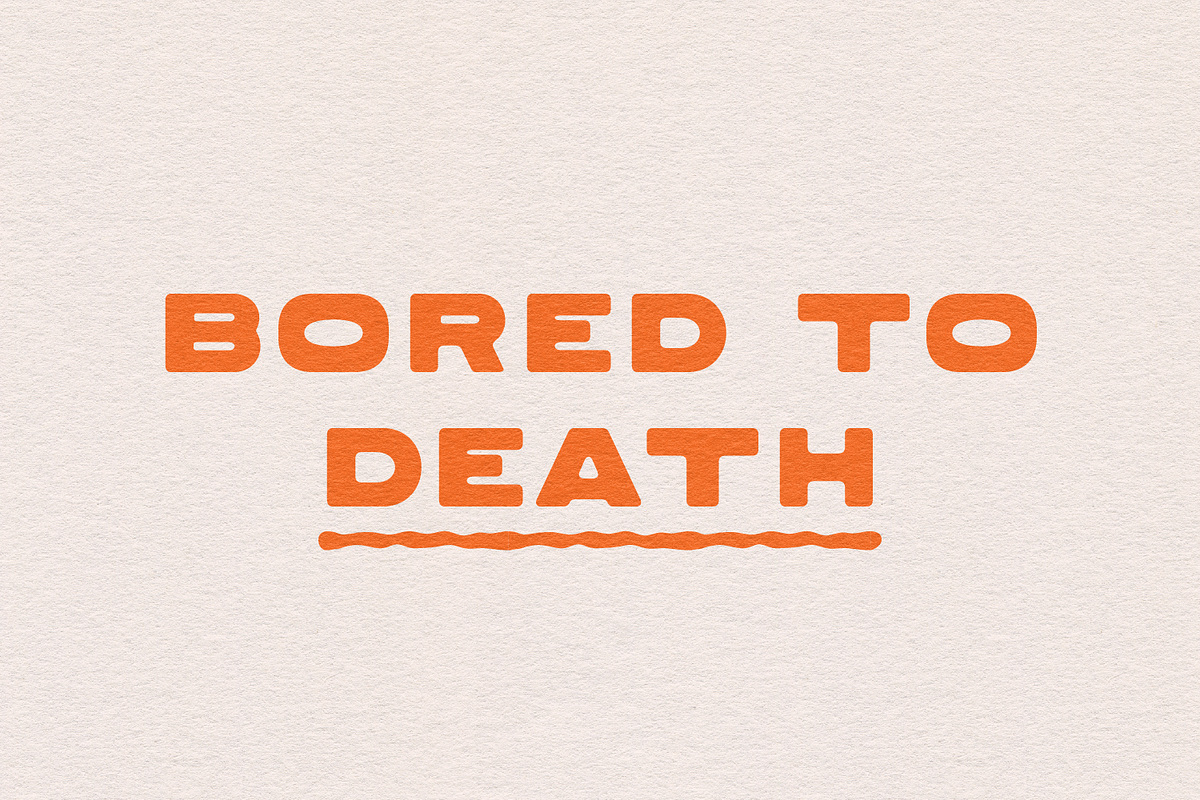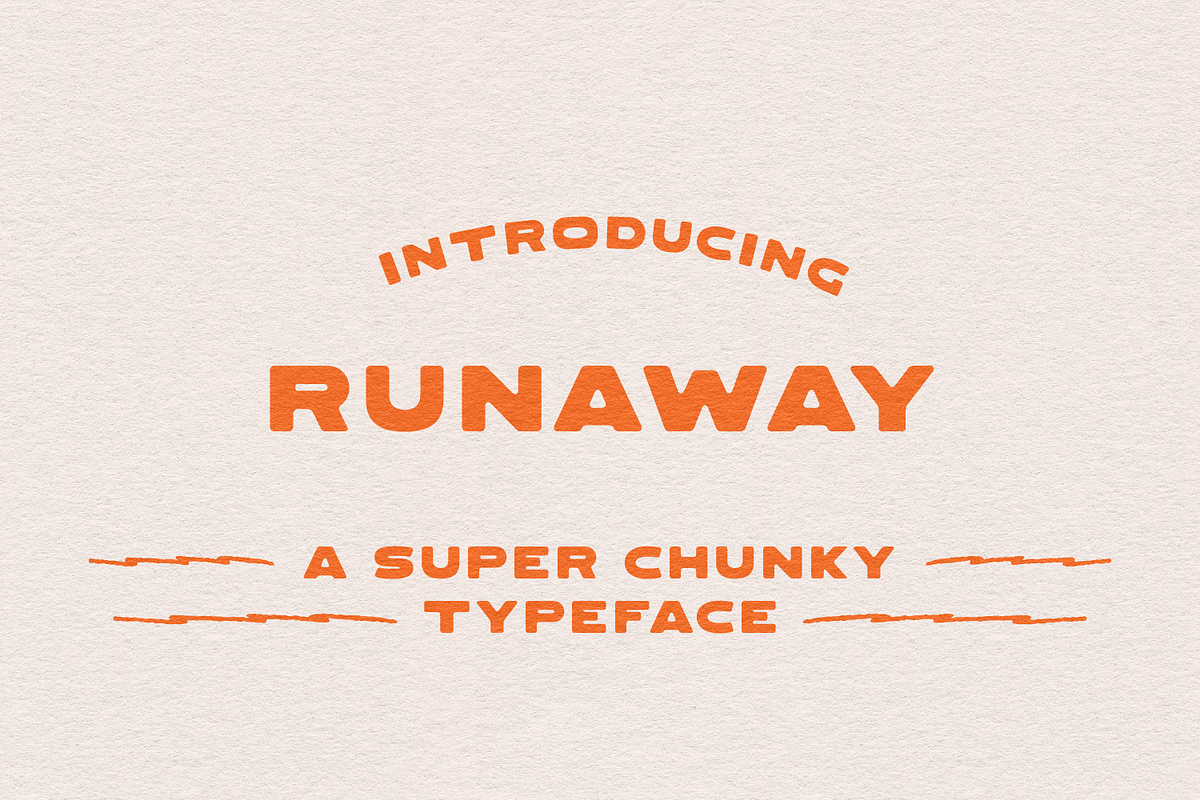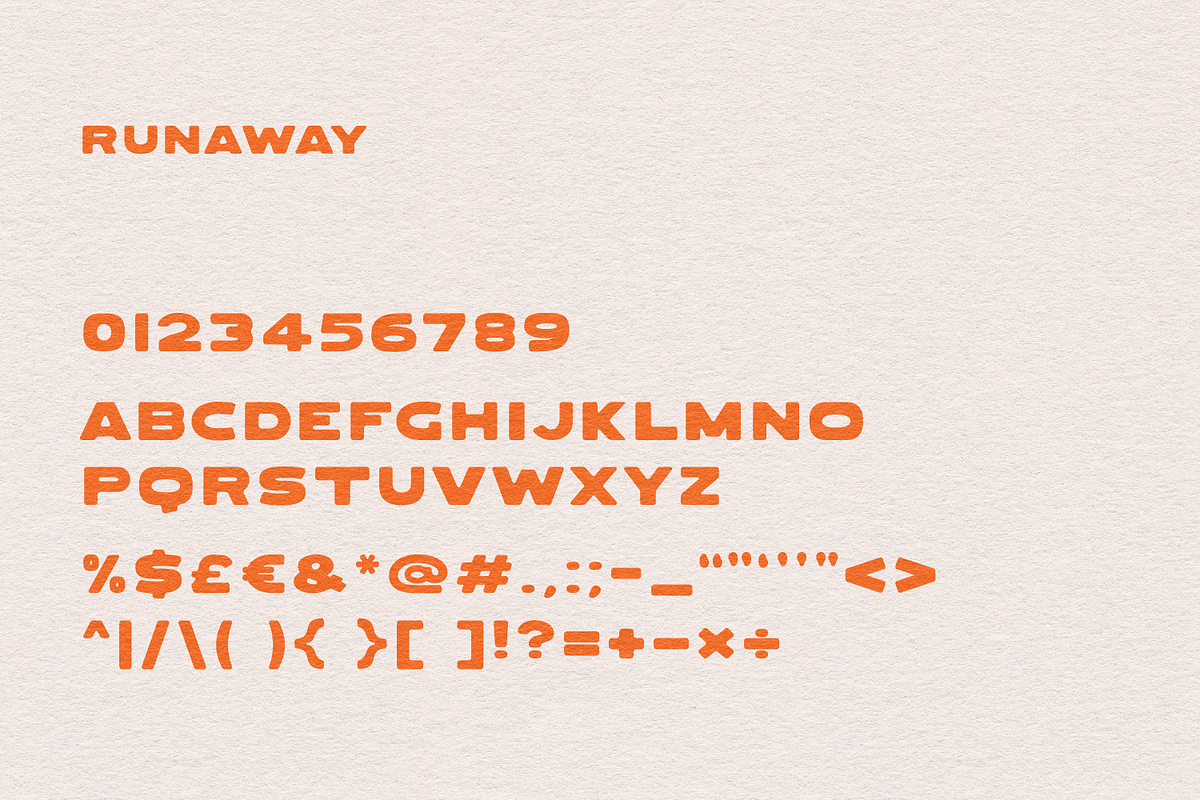
Runaway | A Super Chunky Sans Serif
'Runaway' is a super chunky all caps typeface designed to take up space. With a statement 'O' it's perfect for creating bold designs and branding.
- capitals A-Z, including multiple language support
- numbers 0-9
- a range of punctuation and special characters